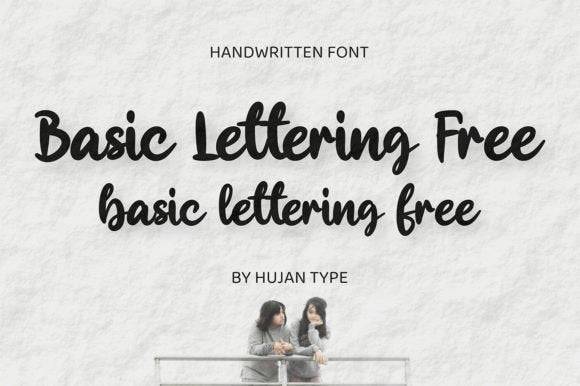
Basic Lettering Free Font for Crafting, Logos and Print Projects
This downloadable font file offers a balanced and minimalist lettering style suitable for a wide variety of crafting and branding needs. Designed for clarity and adaptability, Basic Lettering delivers consistent results in both print layouts and digital applications.
As a typographic asset, it supports core design workflows including logo creation, product labeling, and decor personalization. It reinforces the font entity while enabling seamless output in printable and cut-ready formats.
- Sharp and simple lettering for multipurpose use
- Easy to pair with graphics or decorative fonts